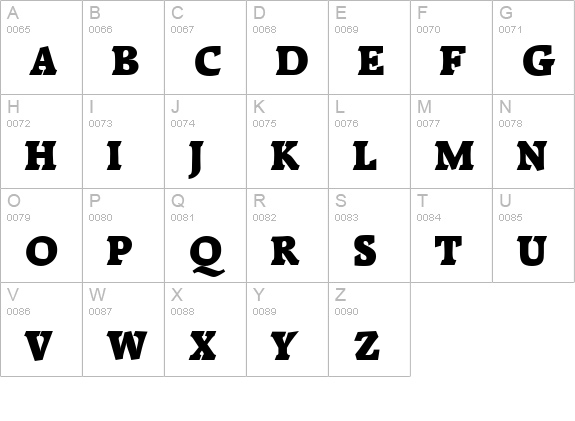
RaleighSerial-Black-Regular is a maximum-weight, dramatic variant in the RaleighSerial typeface family \xE2\x80\x94 well suited to maximum-impact headlines, posters, and packaging.
RaleighSerial-Black-Regular font is a bold and striking typeface that exudes confidence and professionalism. Its sleek and modern design makes it perfect for a wide range of projects, from branding to editorial design. The clean lines and sharp edges of this font give it a contemporary and sophisticated appearance that is sure to make a statement. The best part about RaleighSerial-Black-Regular font is that it is available for free download at FontsMarket.com. This means you can easily access this high-quality font without any cost, making it a valuable addition to your font collection. Whether you're working on a print project or a digital design, RaleighSerial-Black-Regular font will help you achieve a polished and refined look. Don't miss out on this opportunity to enhance your design projects with the elegant and versatile RaleighSerial-Black-Regular font. Download it for free today at FontsMarket.com and elevate your typography game!